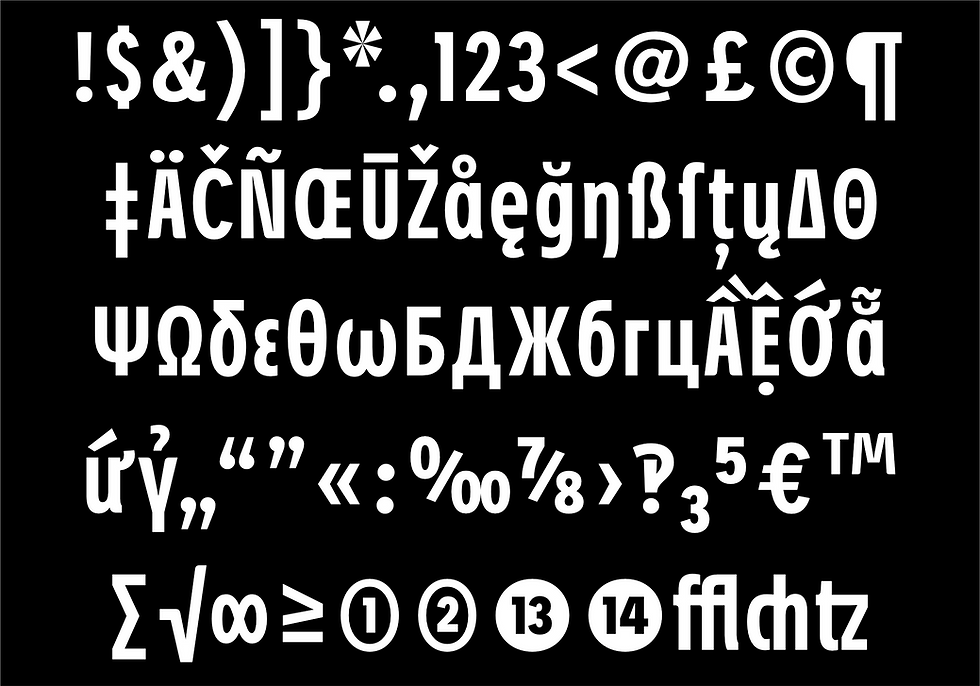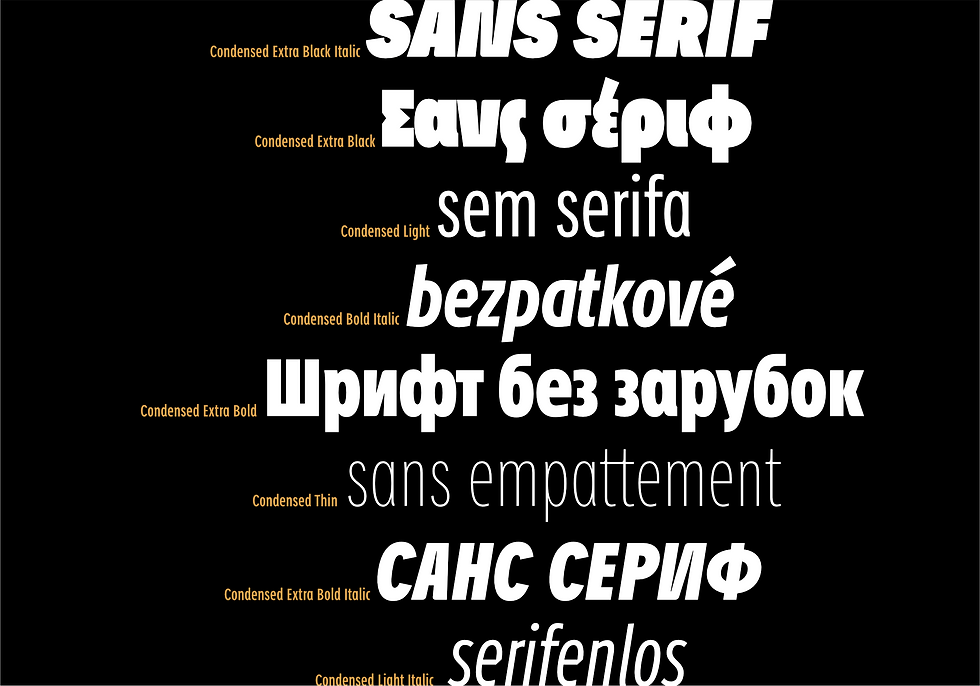
The font family of "Petermann" is a modern sans serif with certain characteristics.
Petermann offers numerous OpenType features and style sets. For example, small caps, fractions, circled numerals and the historic long s are included.
There are alternative designs for some letters to give the typeface a completely different overall impression.
Conventional two-story variants of lowercase a and g are available (Style Set 04). You can choose the letters d j l u without “feet” or with a straight stroke (Style Set 01), the lowercase f and the german double s with a descender (Style Set 03).
Variants of some capital letters can also be selected: the M with straight sides, the I with a serif-like upper stroke, the two-story capital W.
Some letters are also available in a more open, lighter design: A B D G P R and, correspondingly, the lowercase e.
Several ligatures also enrich the possibilities of Petermann.
Petermann even includes small caps, i.e. small capital letters matching the height of the lowercase letters.
The numerals are available alternatively as old-style figures, tabular figures or proportional figures. An alternative slashed zero is also included. Fractions and circled numbers (positive and negative) are also part of the character set.